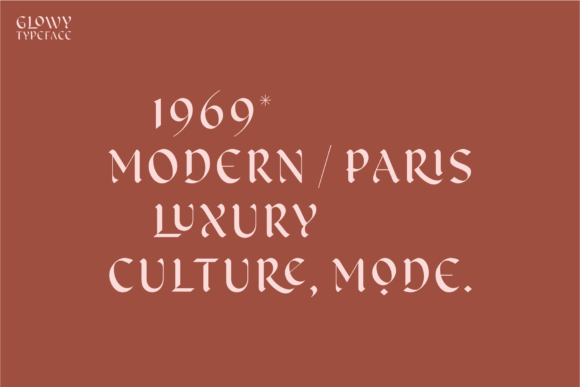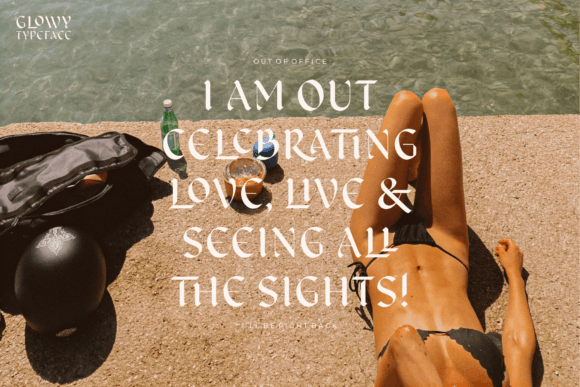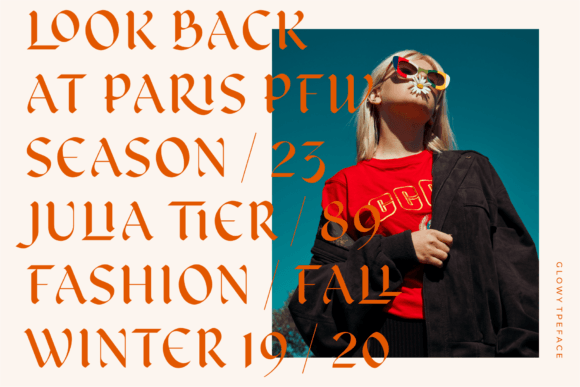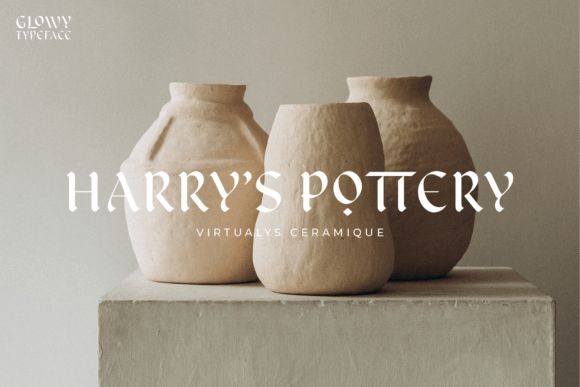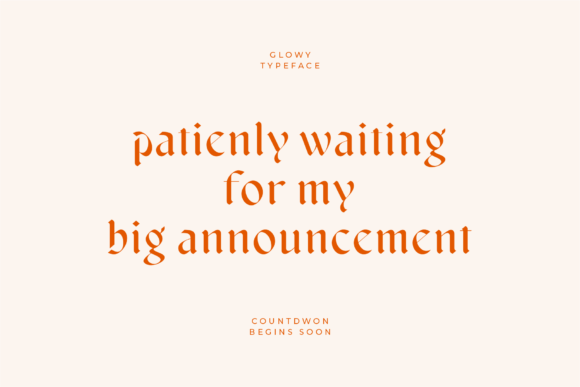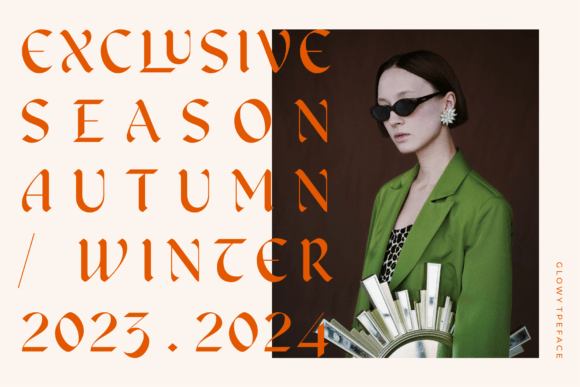
The Glowy Modern Serif Font: A Designer’s Dream Come True
I still remember the design project that led me to discover the Glowy Modern Serif font. I was working on a luxury brand’s logo, and my client specifically asked for a font that exuded elegance, sophistication, and a touch of modernity. I scoured the internet, tried countless fonts, but none seemed to fit the bill. That was until I stumbled upon Glowy Modern Serif. It was love at first sight! ✨
- ✨ The unique luminescent quality that sets it apart from traditional serif fonts
- ✅ The font’s versatility – perfect for logos, headlines, and quotes
- 💫 The inclusion of ligatures and alternate characters for custom typography
- 🎨 The modern serif design that blends contemporary aesthetics with elegance
While Glowy Modern Serif is an exceptional font, there are a few things to keep in mind: 🤔
- ⚠️ Some characters may not render correctly in older software or browsers
- ⚠️ The font’s uniqueness may not be suitable for very long texts or body copy
Glowy Modern Serif was created by a team of designers who wanted to push the boundaries of traditional typography. Inspired by the soft glow of neon lights, they experimented with luminescent effects and modern serif design to create a truly unique font. The result is a font that’s both elegant and attention-grabbing.
| Is Glowy Modern Serif suitable for body copy? | While Glowy Modern Serif is an exceptional font, it’s best suited for headlines, logos, and short texts. |